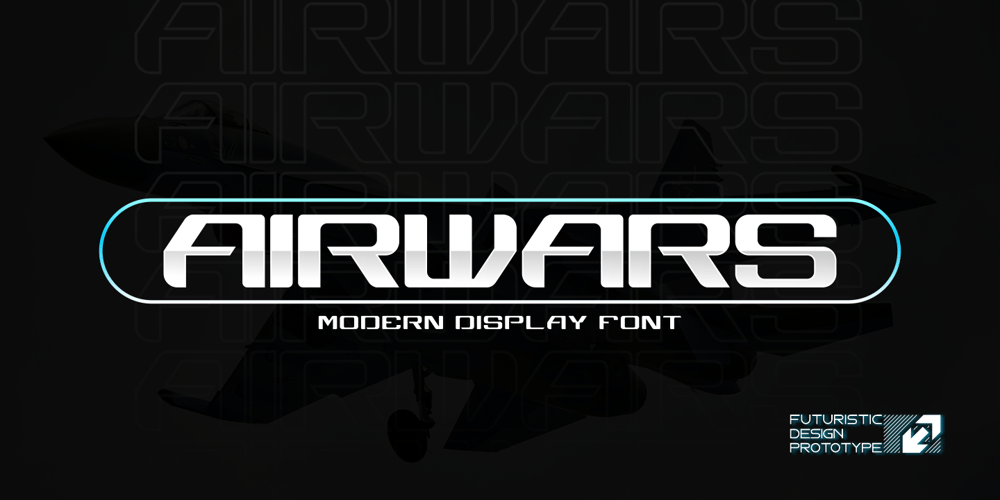
Airwars Future Font Family was designed by Sipanji and published by Sipanji21. Airwars Future contains 1 styles and family package options. “Airwars” is a display font with a modern and futuristic theme. Fonts like this are often used in designs aiming to create a clean, advanced look that emphasizes technology and sophistication. “Airwars” can be used in various design projects, such as web design, advertisements, promotional materials, or products that want to convey a modern and futuristic impression. With typography like this, you can bring a futuristic touch to your design.